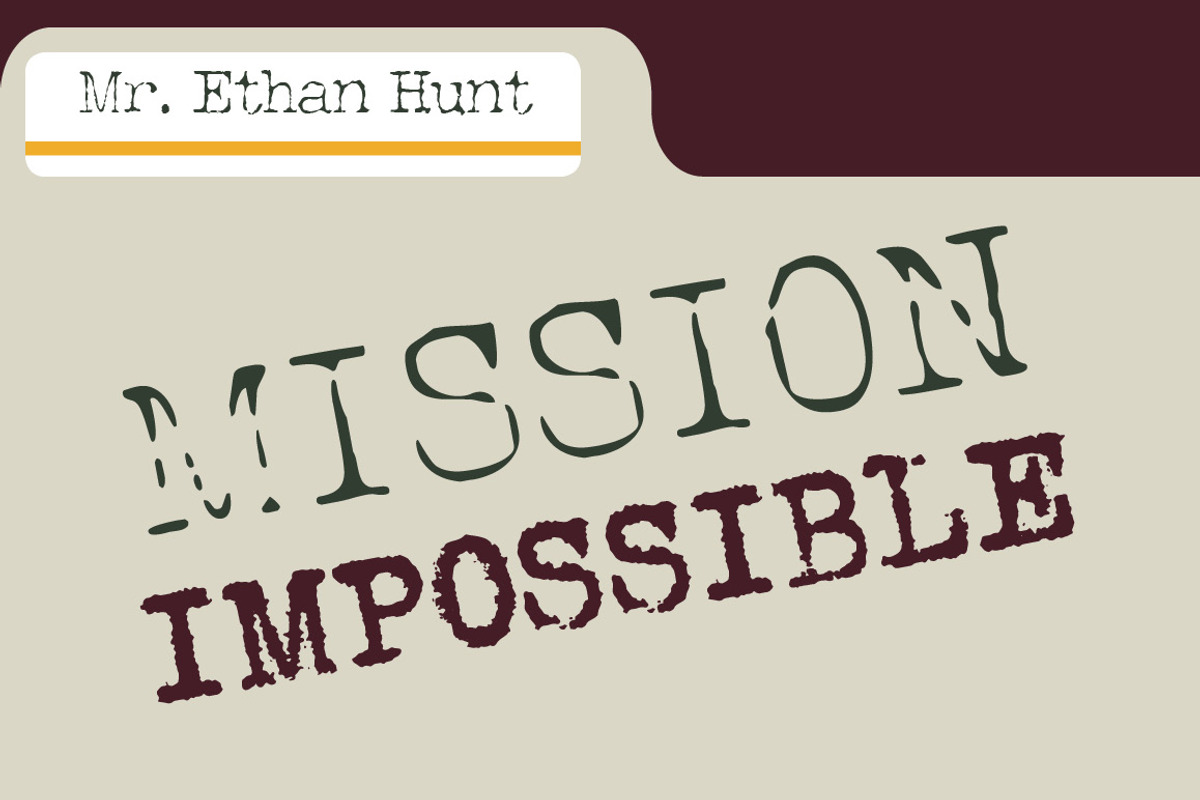
Grungy Old Typewriter Font Family
Grungy Old Typewriter Font Family by RogerRidpath is a font selected for branding, posters, packaging, typography.
Why Grungy Old Typewriter Font Family is worth a look
Grungy Old Typewriter Font Family by RogerRidpath fits naturally into Branding, posters, packaging, typography.